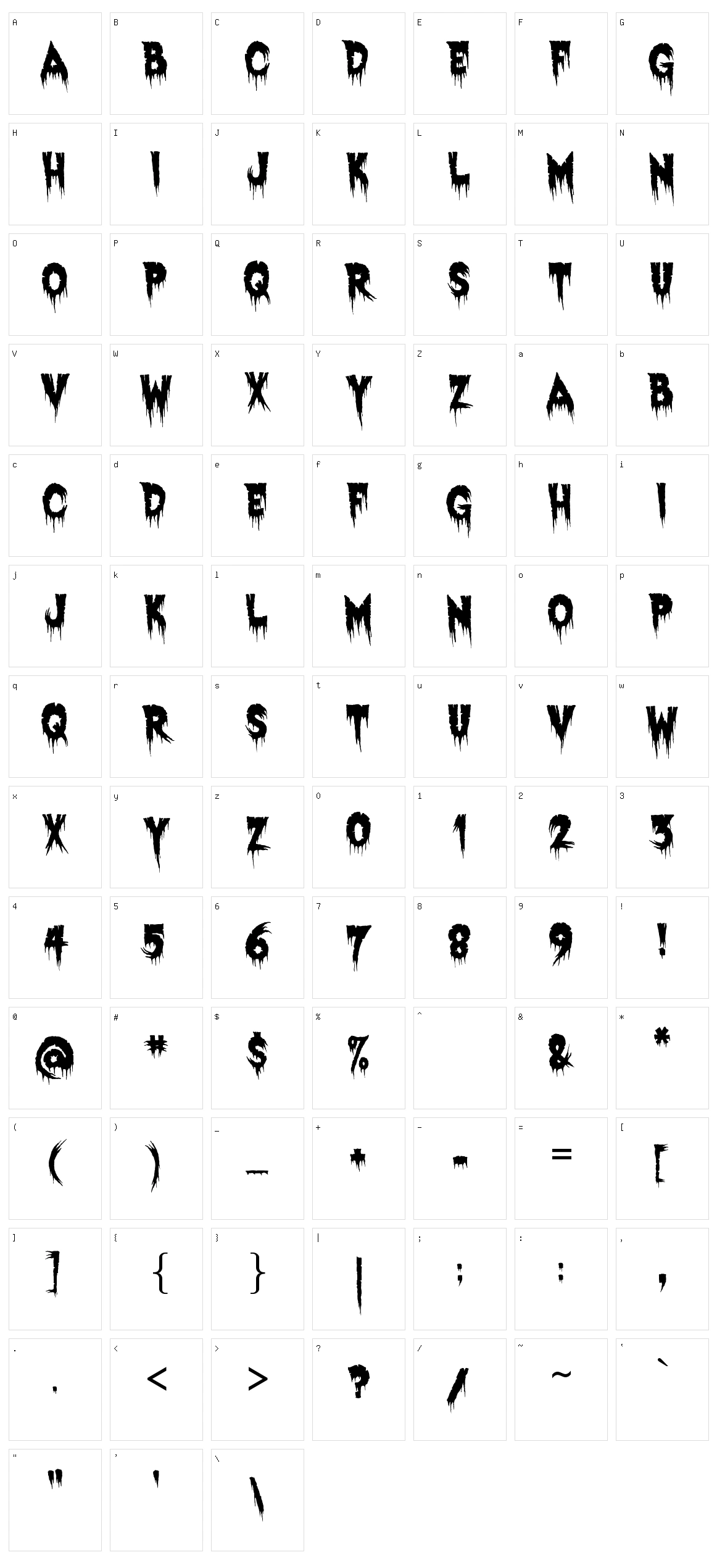
Exquisite Corpse Font by Chad Savage
Created 2010, hand-lettered in response to classic, creepy fonts like Creepshow.
This font is intended for specialty and graphic uses. It will look just awful if used in a paragraph format.